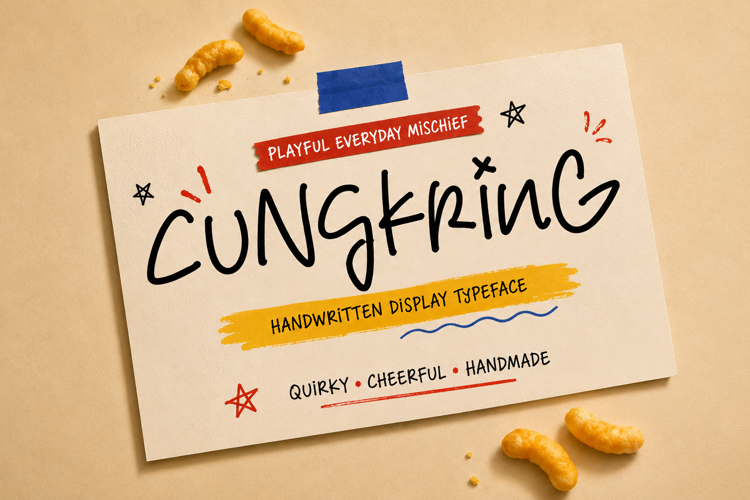
Cungkring Font
Playful handwritten font with quirky, cheerful vibes.
**Cungkring Handwritten Display Font - Playful, Quirky, Cheerful Typography**
Inject instant joy into your designs with Cungkring, a delightfully playful handwritten display font that captures the essence of everyday mischief and childlike wonder. This handmade typeface combines quirky letterforms with cheerful energy, making it perfect for brands and projects that celebrate fun, creativity, and authentic human touch.